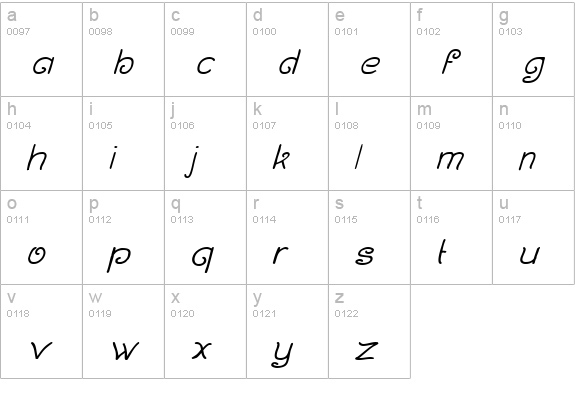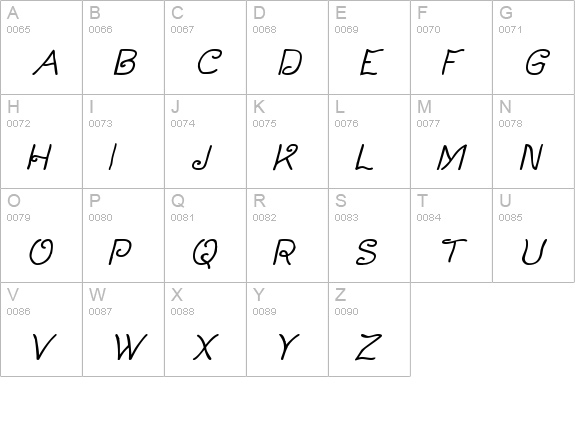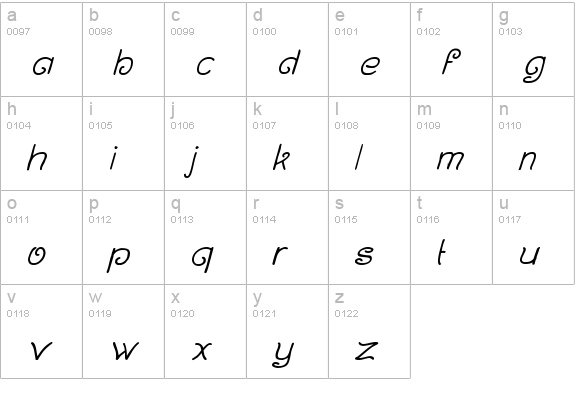
Curlmudgeon Italic Font Details
Curlmudgeon Italic is a distinctive, italic variant in the Curlmudgeon typeface family \xE2\x80\x94 well suited to design and typography projects.
Curlmudgeon Italic font exudes an elegant and sophisticated charm with its flowing, cursive design. Perfect for adding a touch of class to any project, this font is ideal for invitations, branding, or any creative endeavor that requires a touch of finesse. The gentle curves and slanted angles of Curlmudgeon Italic add a sense of movement and grace to your text, making it stand out with its unique personality. Best of all, Curlmudgeon Italic is completely free to download at FontsMarket.com. Embrace the beauty and versatility of this stylish font without breaking the bank. Whether you're a designer looking for a new tool in your creative arsenal or simply someone who appreciates the artistry of typography, Curlmudgeon Italic is sure to impress with its timeless appeal. Elevate your projects with this exquisite font and let your creativity soar.